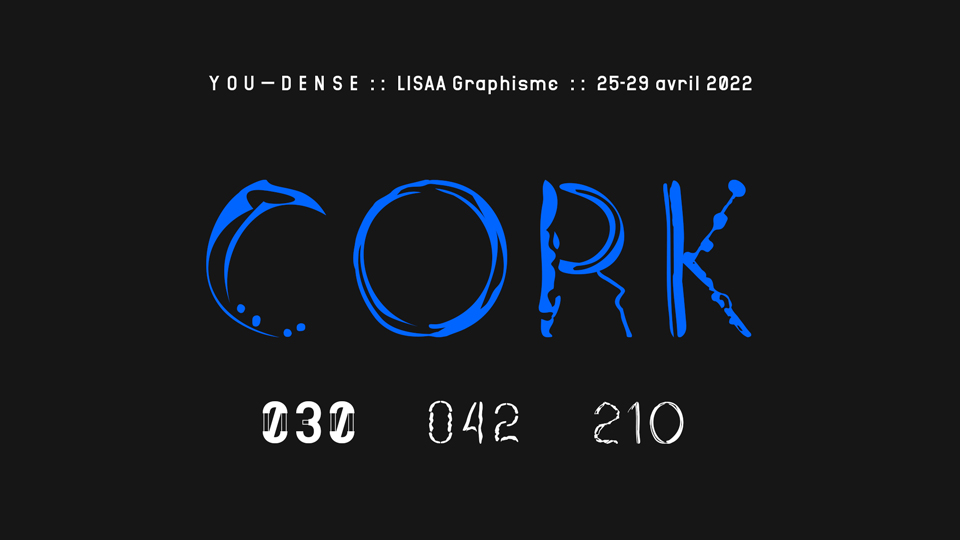
You Dense Cork is part of the super type family of 16 typefaces designed during a workshop given by Lucas Descroix and Benjamin Dumond (Bonjour Monde) at LISAA Paris in April 2022. The typeface is based on the density of Cork material and composed of three cuts that interpret this density in different ways.
The notion of You Dense font family is rooted in history and in usage; we use, without even thinking about it, formal variants (bold or italic, for example) to which are associated precise concepts (emphasis, introduction of a foreign language…). However, it is possible to imagine other relationships between the content of a text and its appearance, other ways of thinking about a typographic family, the logic behind it and the place of each of its members.